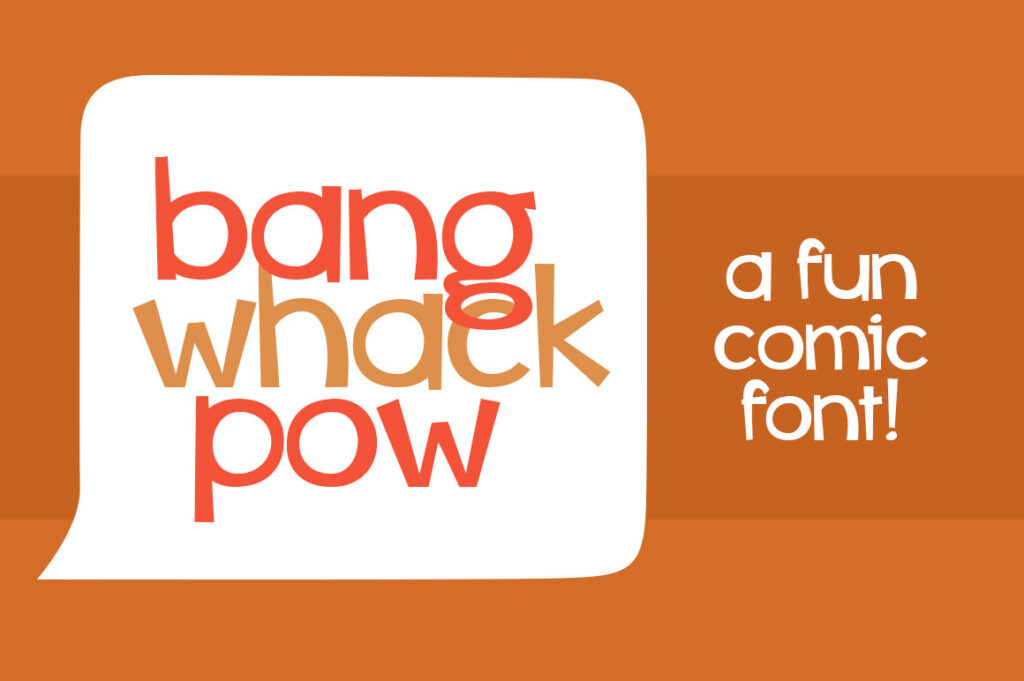
Bang Whack Pow Font: The Fun and Comic Font for Kids
The Bang Whack Pow font is a fun and comic font that is perfect for kids. Its bold and playful design makes it an excellent choice for a variety of projects, from children’s books and educational materials to posters and flyers. In this article, we’ll take a closer look at the Bang Whack Pow font, its features, and how you can use it to add a touch of fun and excitement to your designs.
What is Bang Whack Pow Font?
Bang Whack Pow is a comic font that is designed to bring a sense of fun and playfulness to your designs. It features bold, exaggerated letters that are reminiscent of comic books and cartoons. The font is perfect for kids and adults alike who love comics, cartoons, and superheroes.
Key Features of Bang Whack Pow Font
- Bold and Playful Design: The Bang Whack Pow font features bold and playful letters that are perfect for grabbing attention.
- Comic Book Style: The font is designed to look like comic book lettering, making it perfect for comic book enthusiasts and fans.
- Kid-Friendly: The font is designed with kids in mind, making it perfect for children’s books, educational materials, and kids’ party decorations.
- Easily Readable: Despite its bold design, the Bang Whack Pow font is easily readable, making it perfect for use in a variety of projects.
How to Use Bang Whack Pow Font
The Bang Whack Pow font is versatile and can be used in a variety of projects, including:
Project Ideas for Bang Whack Pow Font
- Children’s Books: Use the Bang Whack Pow font to create fun and engaging children’s books that kids will love.
- Educational Materials: The font is perfect for educational materials, such as worksheets, activity sheets, and educational posters.
- Posters and Flyers: Use the Bang Whack Pow font to create eye-catching posters and flyers for kids’ events, parties, and activities.
- Kids’ Party Decorations: The font is perfect for creating custom party decorations, such as banners, signs, and invitations.
Benefits of Using Bang Whack Pow Font
Using the Bang Whack Pow font offers a range of benefits, including:
Benefits of Using Bang Whack Pow Font
- Grabs Attention: The bold and playful design of the Bang Whack Pow font grabs attention and adds a touch of fun to your designs.
- Kid-Friendly: The font is designed with kids in mind, making it perfect for projects aimed at children.
- Easily Readable: Despite its bold design, the Bang Whack Pow font is easily readable, making it perfect for use in a variety of projects.
- Versatile: The font is versatile and can be used in a range of projects, from children’s books to posters and flyers.
Tips for Using Bang Whack Pow Font
Here are some tips for using the Bang Whack Pow font:
Tips for Using Bang Whack Pow Font
- Use it Sparingly: While the Bang Whack Pow font is fun and playful, it can be overwhelming if used excessively. Use it sparingly to add emphasis and create visual interest.
- Pair it with Other Fonts: The Bang Whack Pow font pairs well with other fonts, such as sans-serif fonts. Experiment with different font combinations to find the perfect pairing.
- Adjust Font Size: Adjust the font size to create visual hierarchy and add emphasis to important text.
The Bang Whack Pow font is a fun and comic font that is perfect for kids. Its bold and playful design makes it an excellent choice for a variety of projects, from children’s books and educational materials to posters and flyers. With its kid-friendly design, easily readable letters, and versatility, the Bang Whack Pow font is a great addition to any design project.